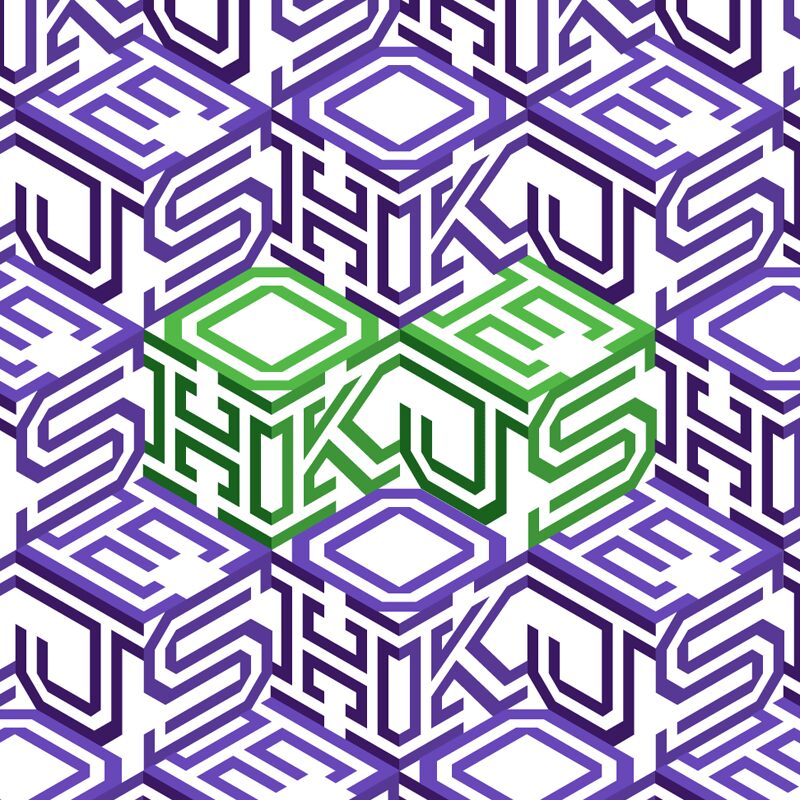
Hokjesgeestcube Italic font by Tup Wanders is a free techno display font with an angular geometric style. The modernist design combines sharp, edgy elements and futuristic features giving your texts an out-of-this-world appearance. Inspired by the digital dominance in our lives, its aesthetic has a technical appeal perfect for projects whose themes are also technology-related.
Hokjesgeestcube Italic can be used in websites, apps, social media posts, digital & printed banners or ads. Personalizing logos and branding elements like business cards or labels is also possible with the characters. Magazines & book covers as well as page headings will gain a more contemporary aesthetic upon using the typeface.